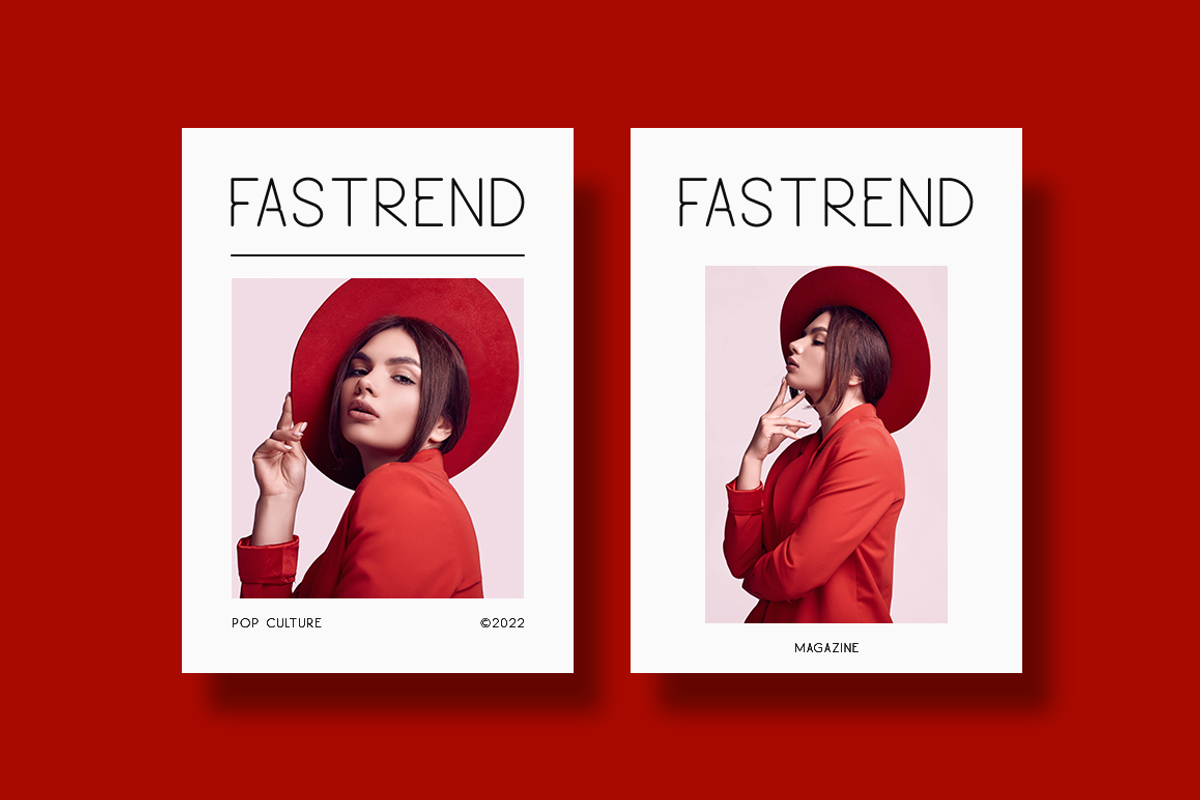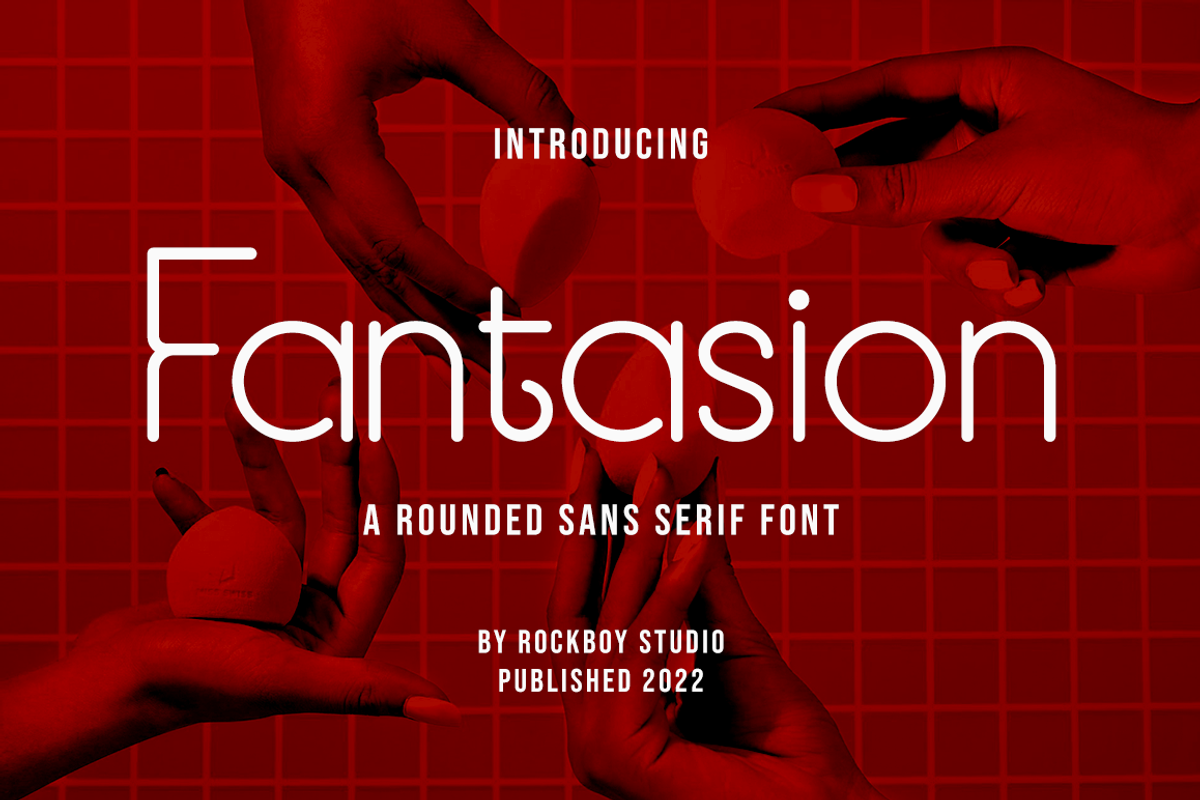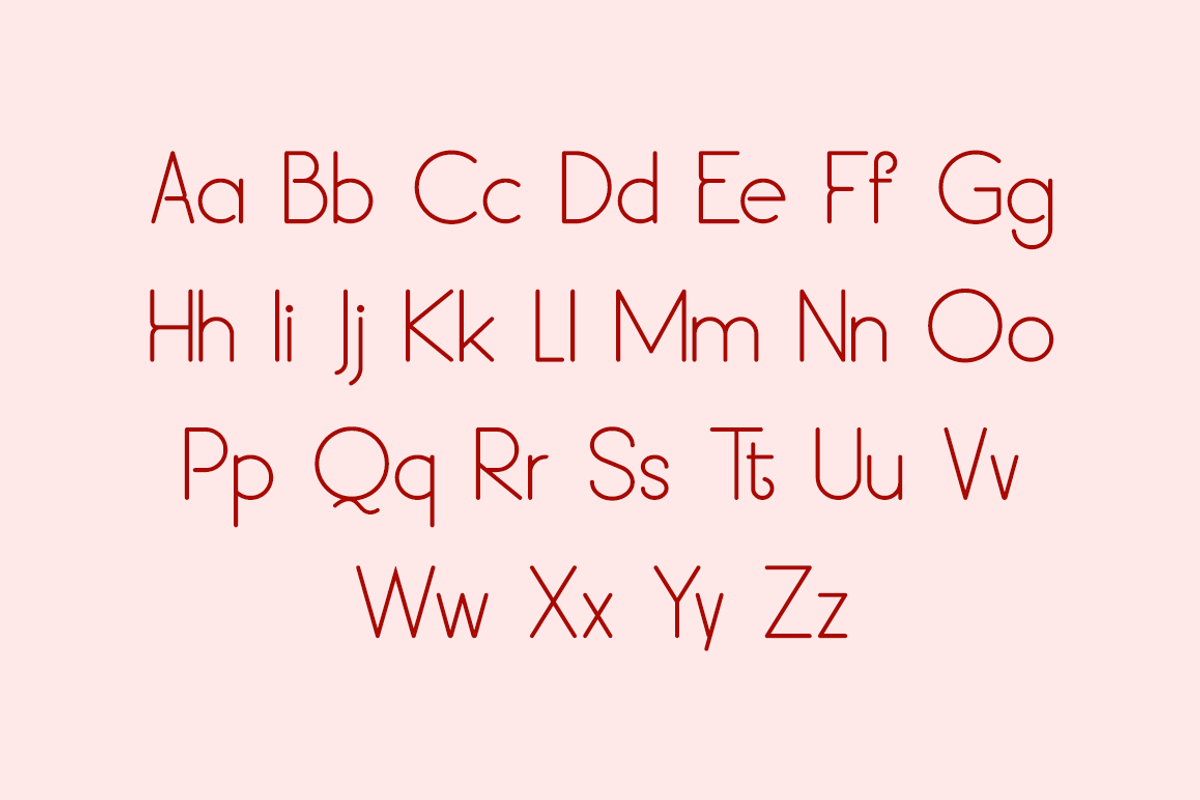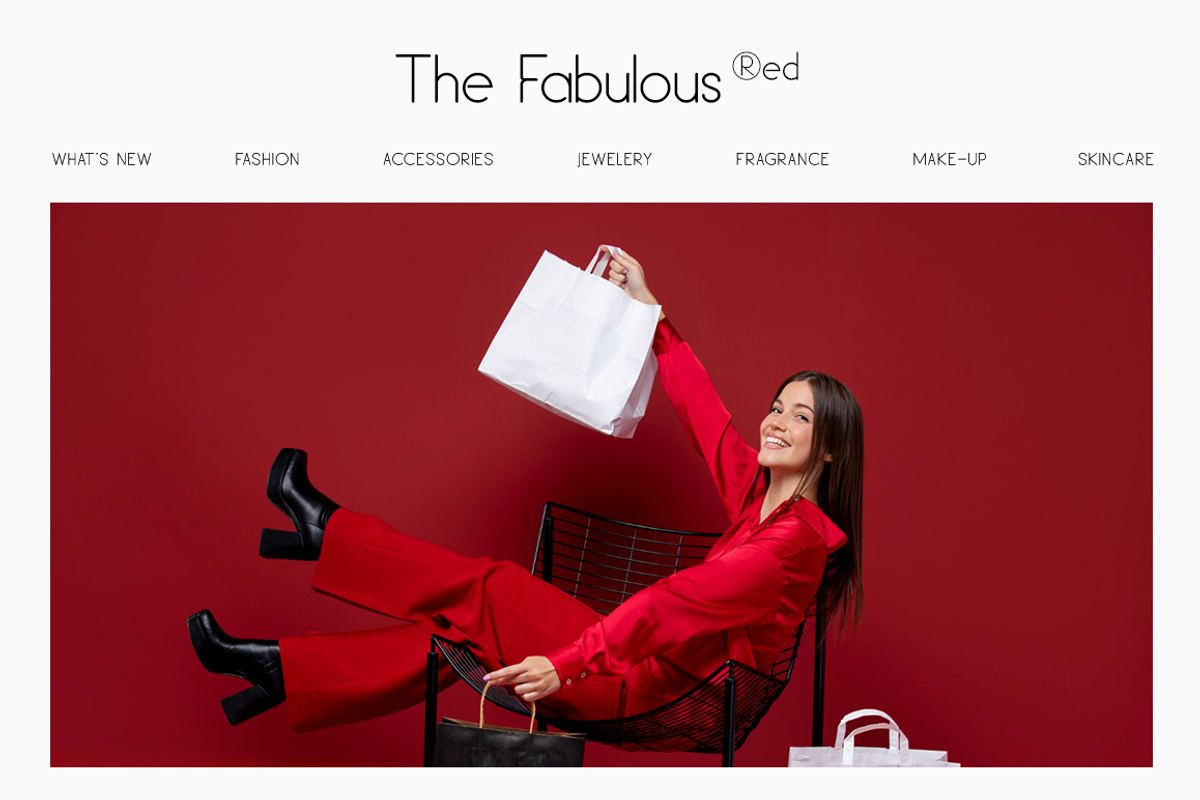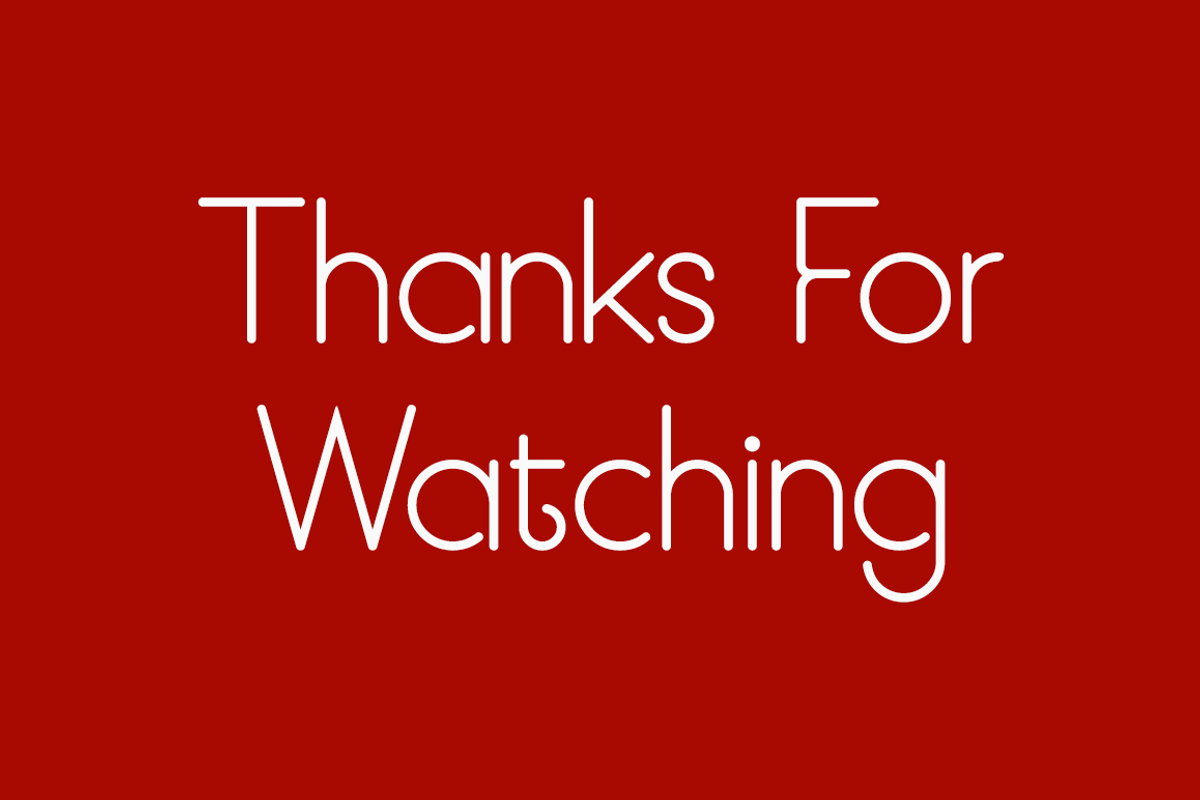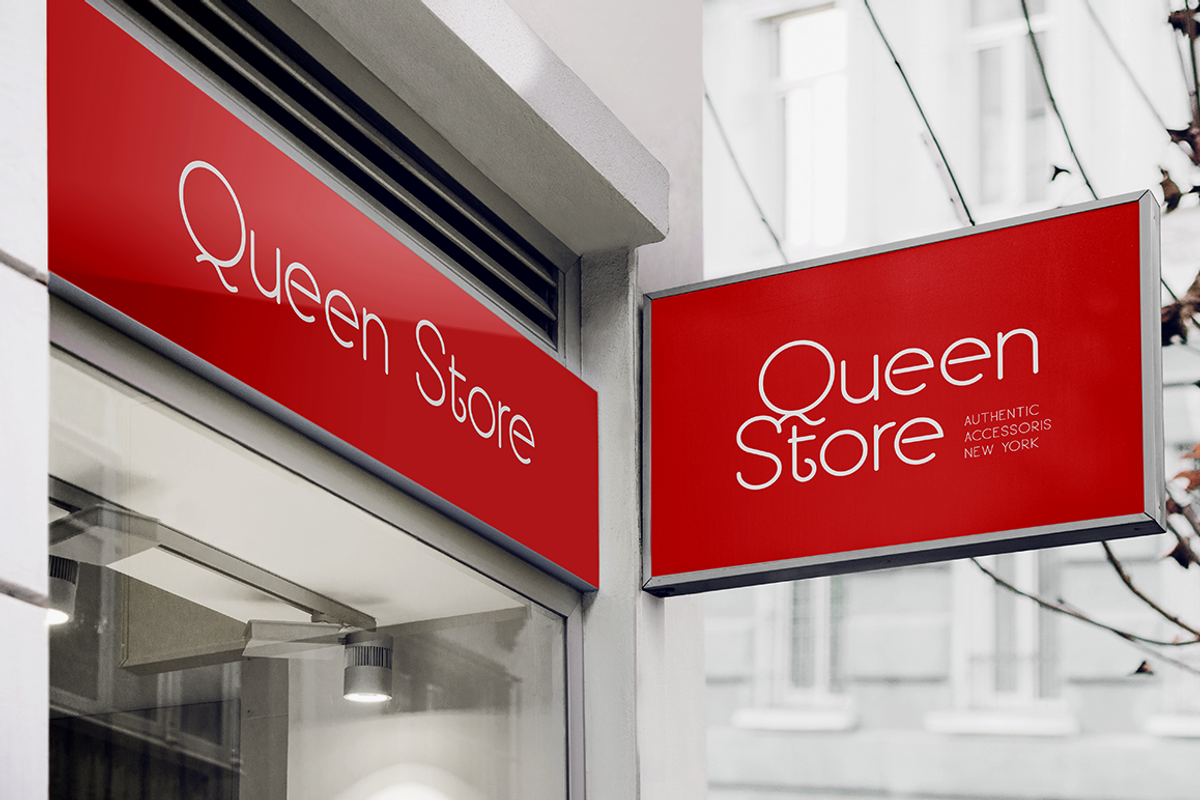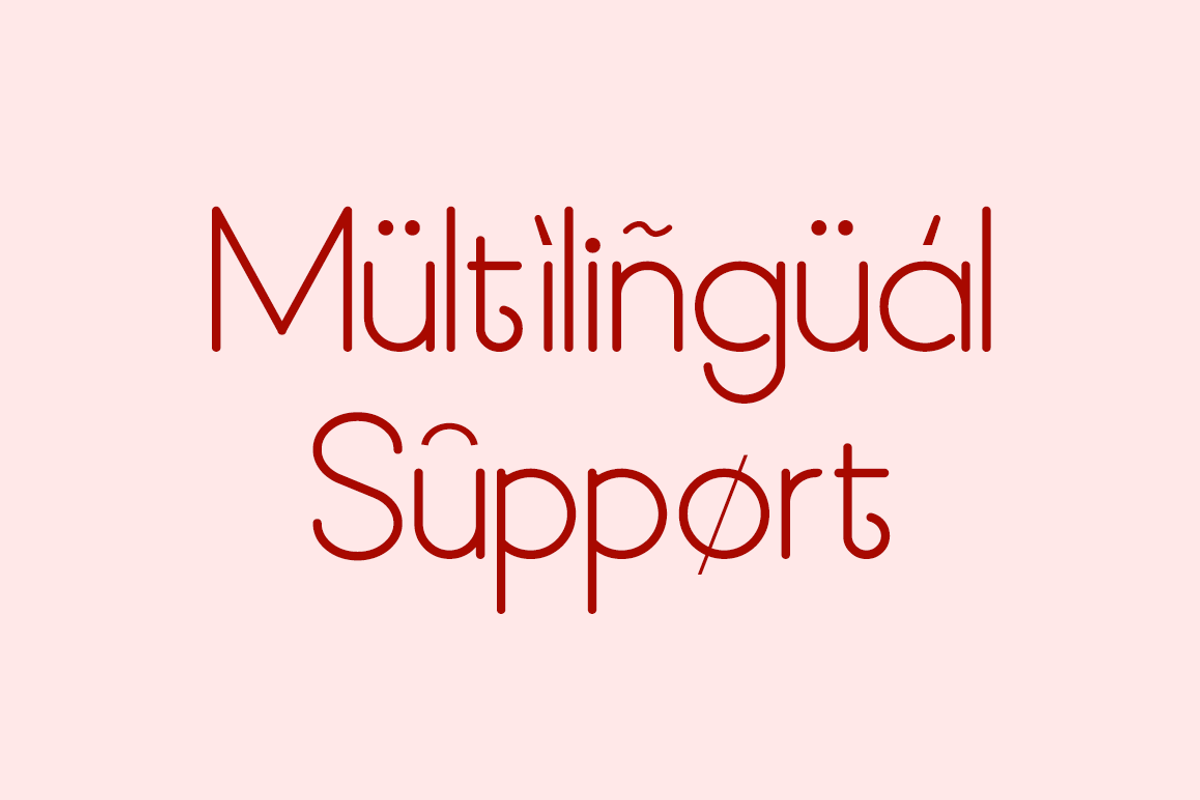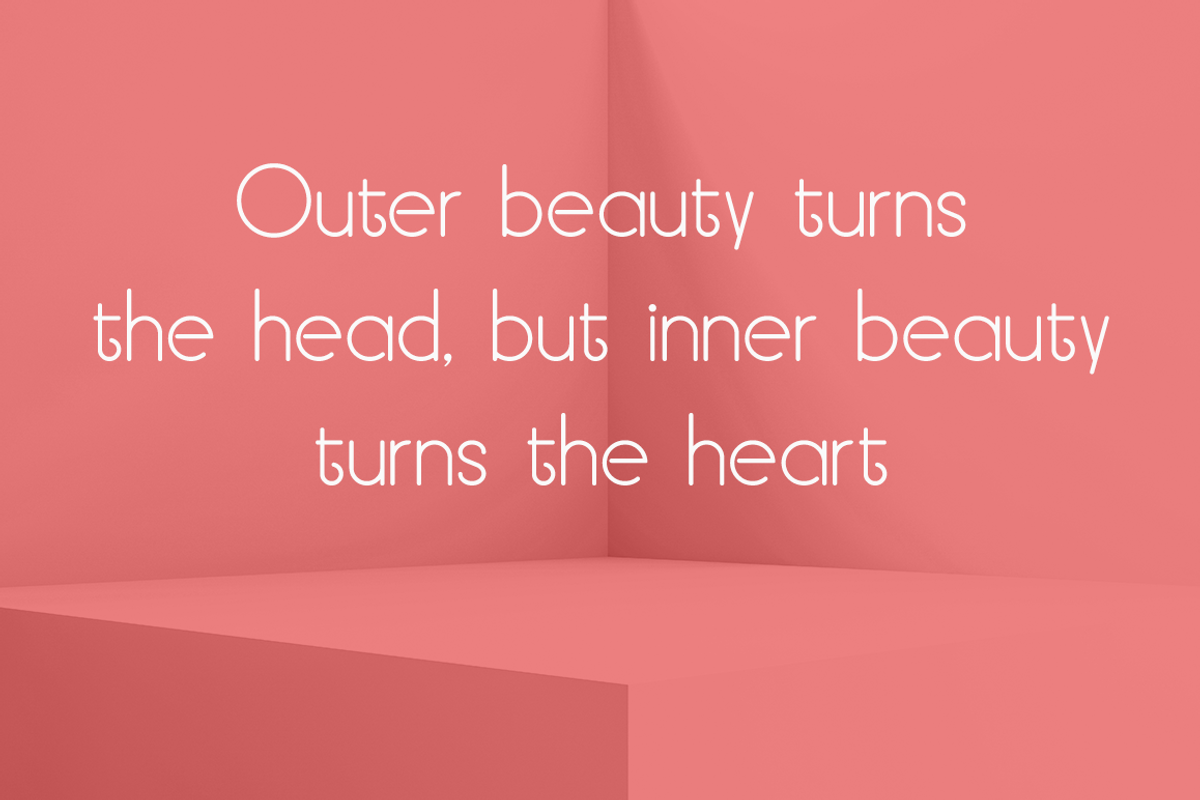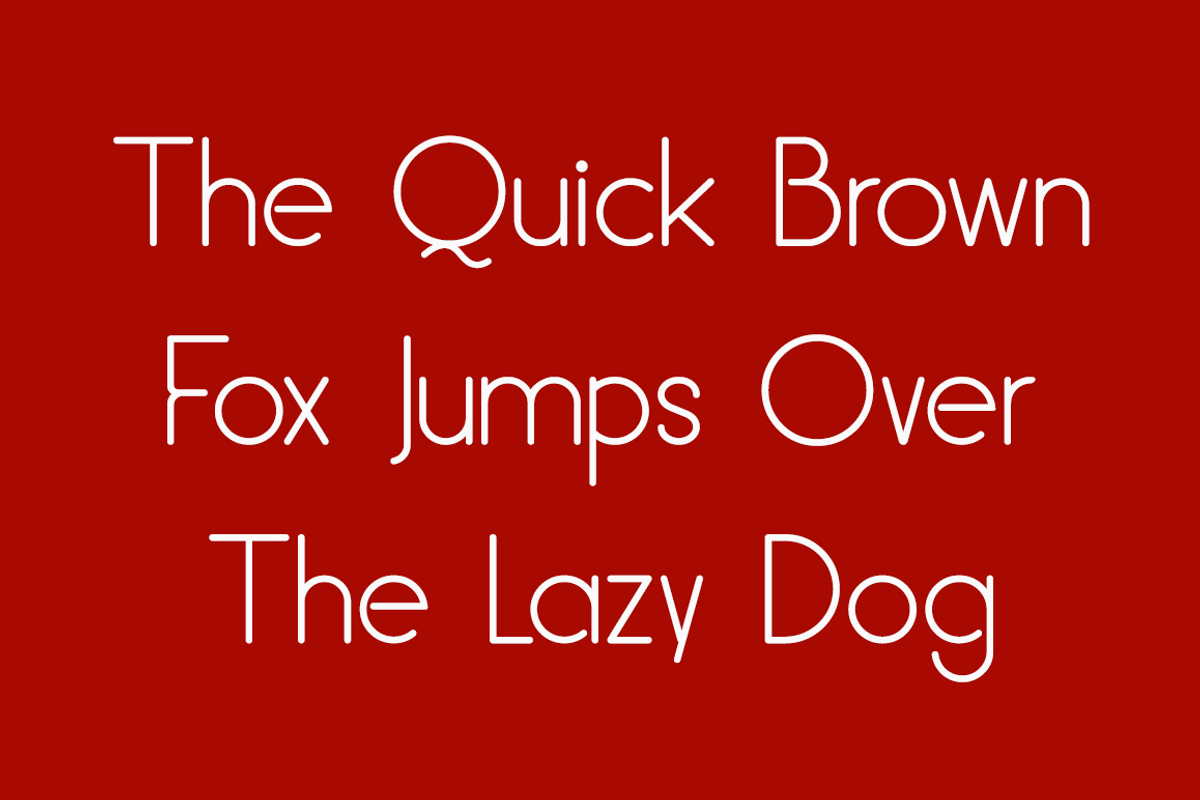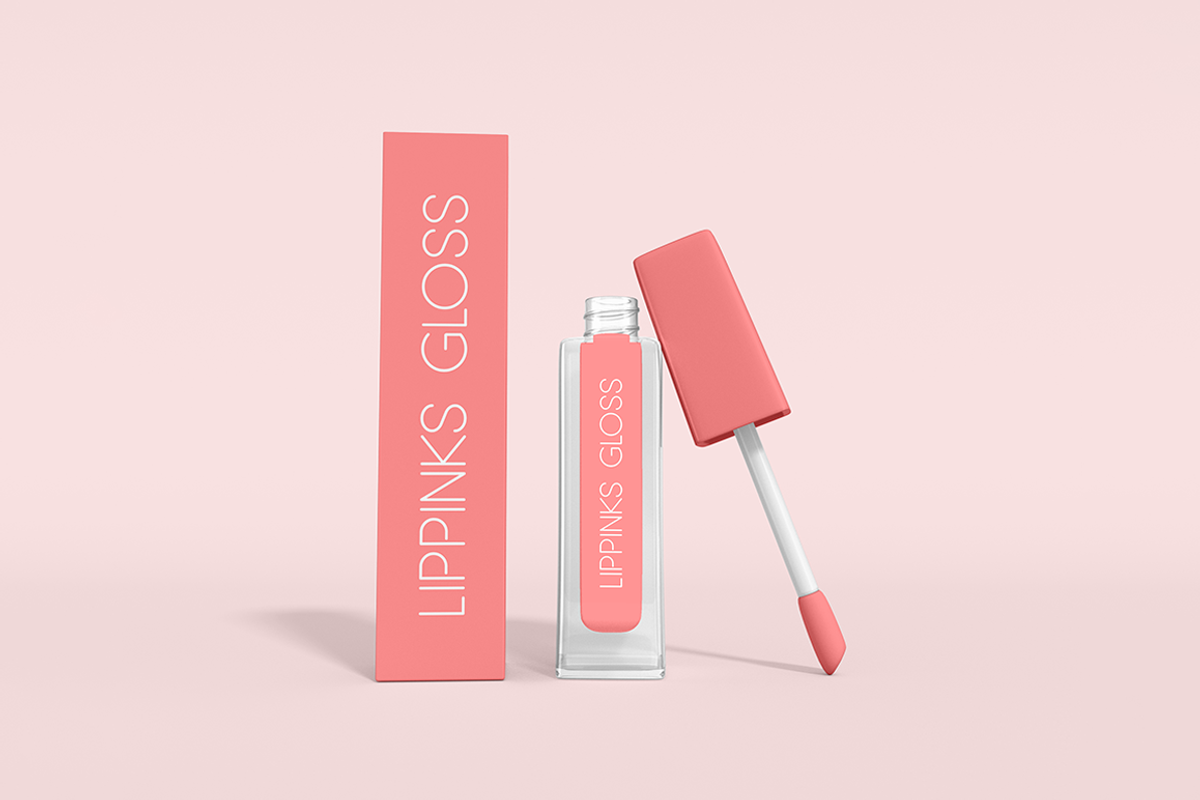
Fantasion - Modern Stylish
Fantasion is an elegant sans serif font. It is PUA encoded which means you can access all of the glyphs and swashes with ease! Fantasion will elevate a wide range of crafting ideas, from cards, to branding, labels and much more.